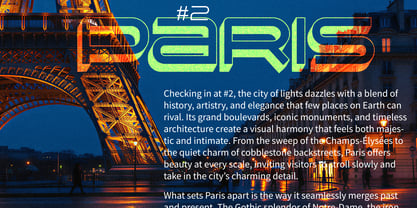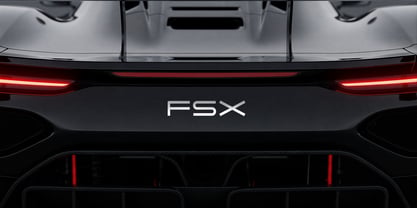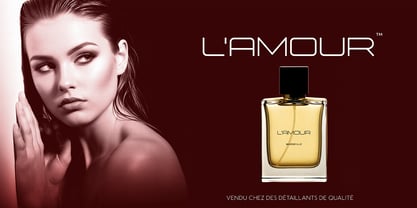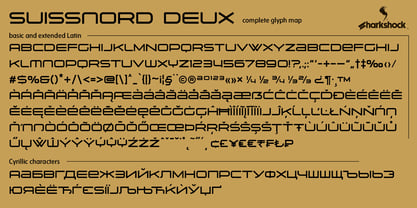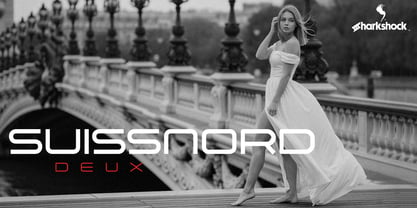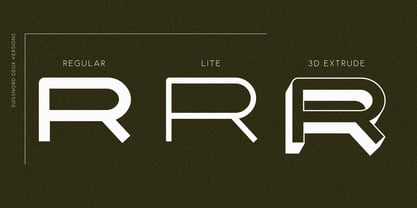
Suissnord Deux
by Sharkshock
The Suissnord Deux Font Family was designed by Dennis Ludlow and published by Sharkshock. Suissnord Deux contains 3 styles and family package options. More about this family
In 2016, Suissnord was designed to blend elegance with functional simplicity. After some major changes, this stylish display sans was reinvented as Suissnord Deux. Keeping with the roots of the legacy version, it combines rounded corners and sleek lines throughout the all-caps character set. The overall width was reduced and many glyphs were completely redrawn. The result was a more refined, sophisticated look with an emphasis on harmony. This is best illustrated in the similar shapes shared amongst characters. Use it for a company logo, spa signage, or an app.   Suissnord Deux comes in 3 different versions. It includes Basic and Extended Latin, diacritics, Cyrillic, punctuation, and kerning. Please check glyph map for all supported characters.